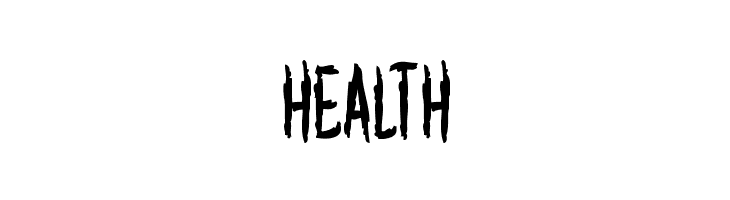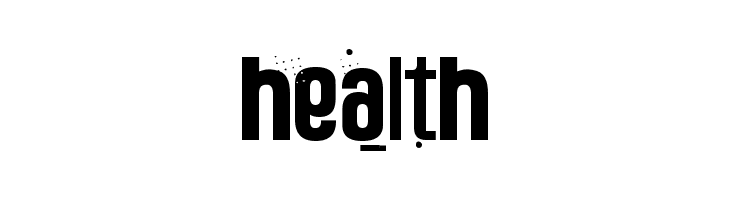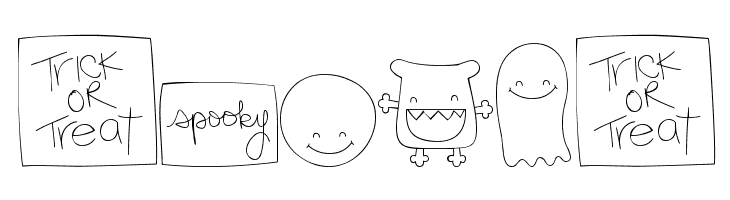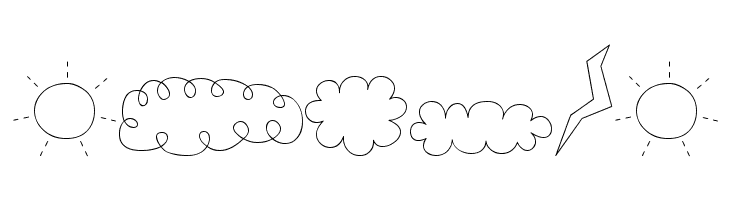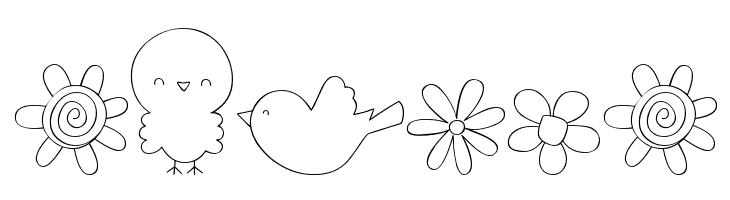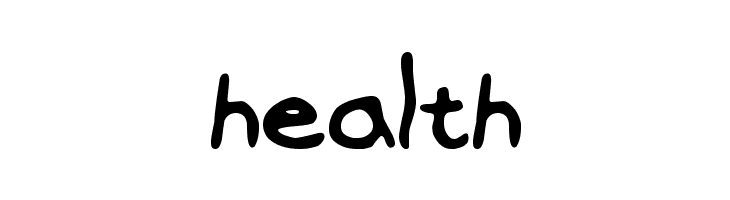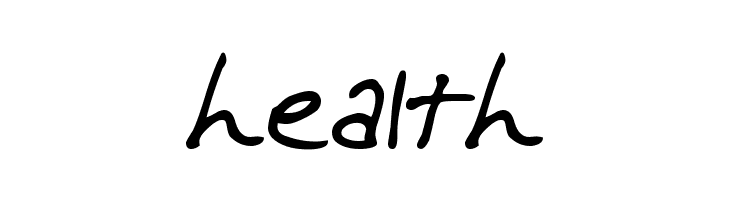
A casual, handwritten font with fluid strokes and a personal touch.
An ornate script font with elaborate swirls and vintage charm.
A playful font of sweet-themed dingbats with whimsical dessert and fruit icons.
A playful dingbat font with cute Halloween-themed illustrations.
A whimsical dingbat font with nature-themed illustrations.
A whimsical, sky-themed dingbat font with playful and airy designs.
A playful, bold handwritten font with rounded edges and consistent strokes.
A playful, bold font with rounded, thick letterforms and a friendly appearance.
A bold, modern font with a strong and versatile design.
A bold, brush-stroke style font with an energetic and hand-drawn appearance.